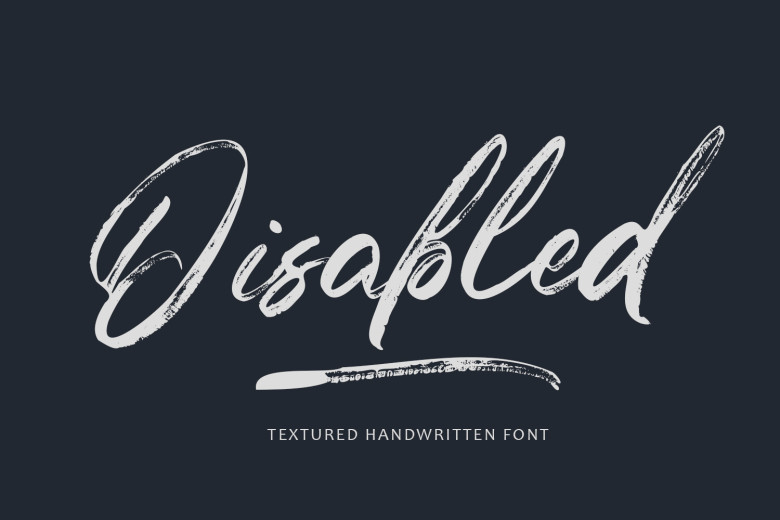
Disabled Font
“Disabled”, a handwritten font with distinctive texture and authenticity, marries authenticity with distinctive texture to give its signature font depth and character. Its tactile look distinguishes it from others like it. Reminiscent of ink bleeds or rough brushstrokes, this texture gives “Disabled” an authentic and rustic charm, adding depth and dimension.
Disabled Brush Script Font